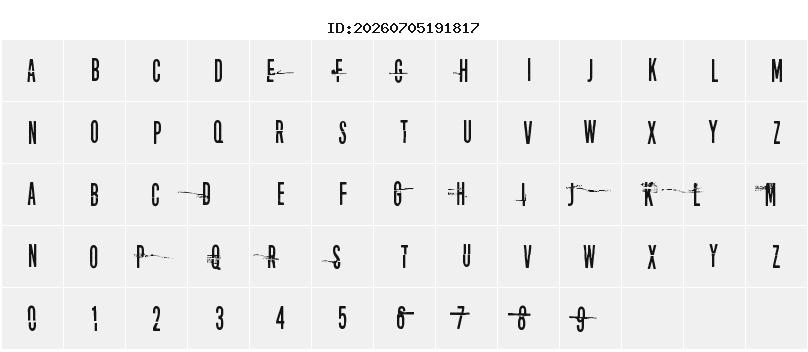
• Font Name: Disturbo
• Designer: junkohanhero
About Disturbo.ttf
Disturbo.ttf is a modern, elegant sans-serif font designed for ultimate readability and visual harmony. Perfect for branding, headlines, web design, and print materials.